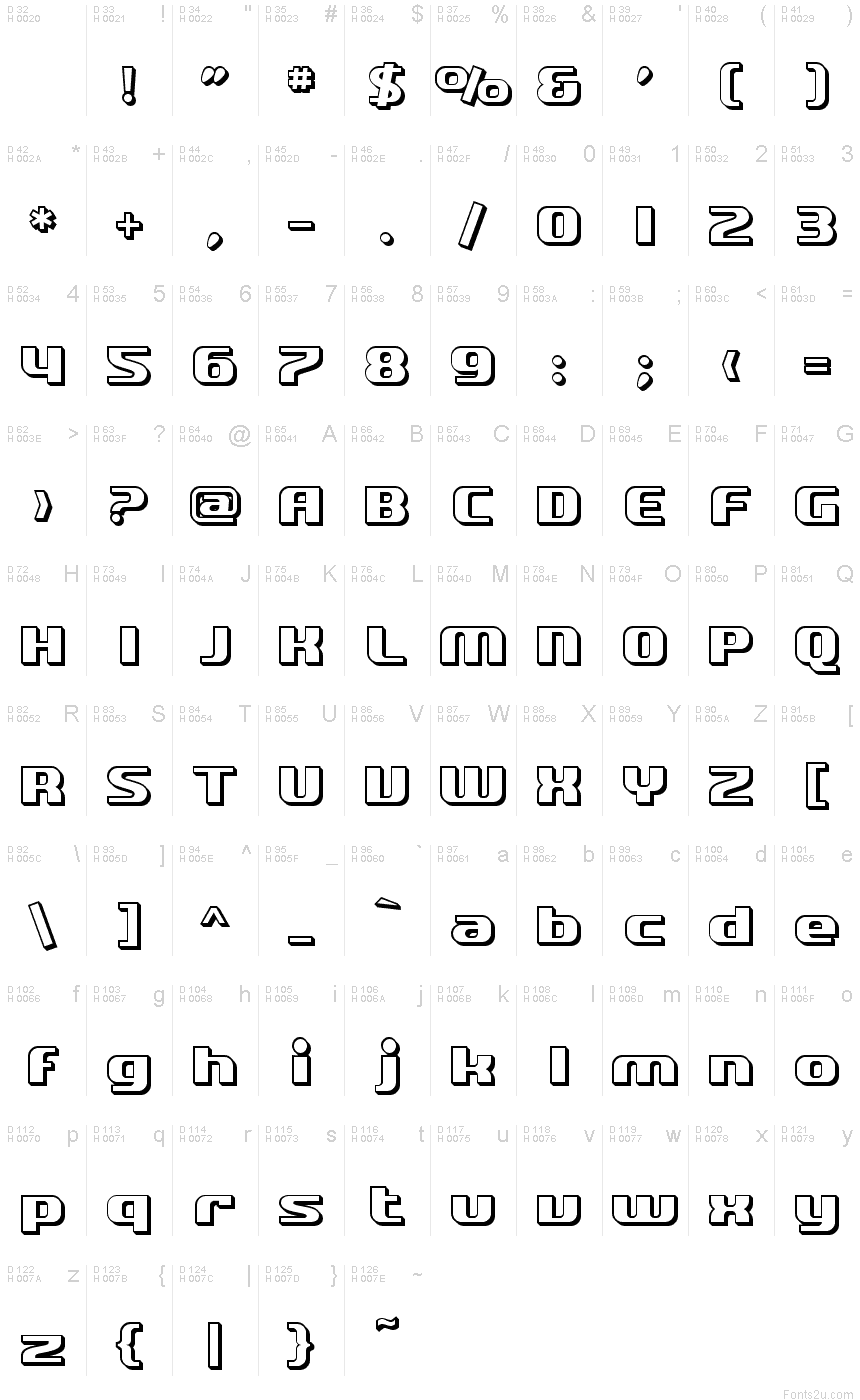
SF Quartzite Shaded
SF Quartzite Shaded from ShyFoundry is a free retro-futurist shaded display font with a chunky, molded look. The letters feel carved from glossy plastic or chrome, using broad rounded shapes, deep inline shadowing, and a few soft corners that keep the alphabet more playful than severe.
It fits posters, game logos, album covers, sci-fi title cards, and big cover lines where a free font can bring instant late-70s and early-digital mood. Because the shading is built right into the forms, it also works well for short headlines, monograms, and branded initials that need depth without piling on extra effects.